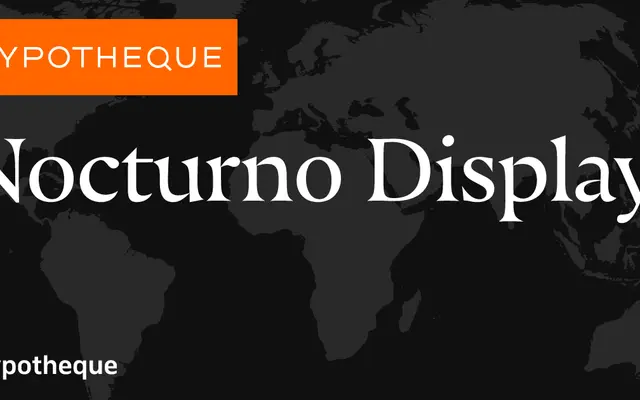
Nocturno Display
A display serif from Typotheque offered in four weights with italics, designed as the large-scale counterpart to the Nocturno text family.
Nocturno Display is the headline-scale member of the Nocturno system, available in Regular, Book, Medium and Bold with matching italics. It pairs with the Nocturno text family, the two together covering a range of optical sizes suited to editorial and publishing work. A variable font version is also available, offering fluid interpolation across the weight axis.
Nocturno Display is a display-grade serif, offered alongside a text companion (Nocturno), suggesting optical size differentiation typical of classical serif families adapted for large-scale use.